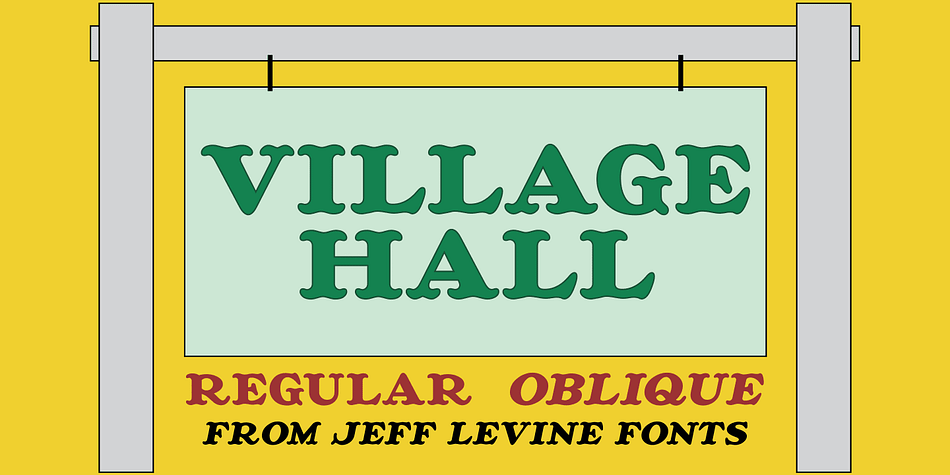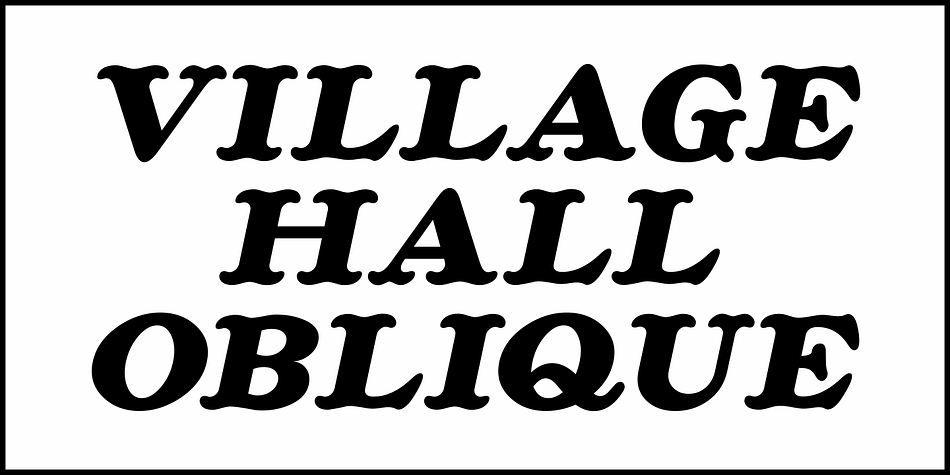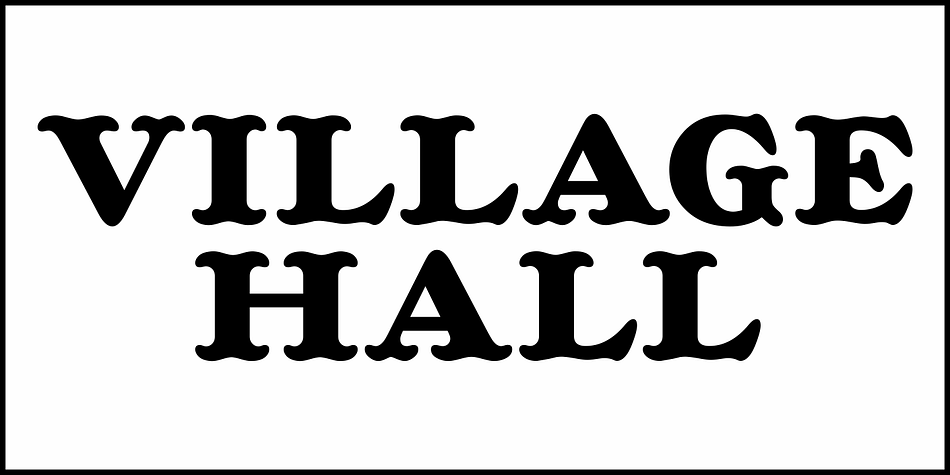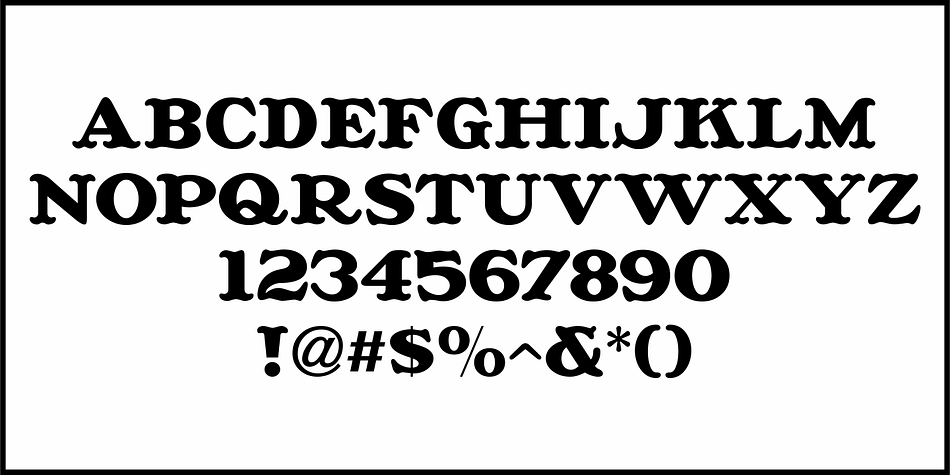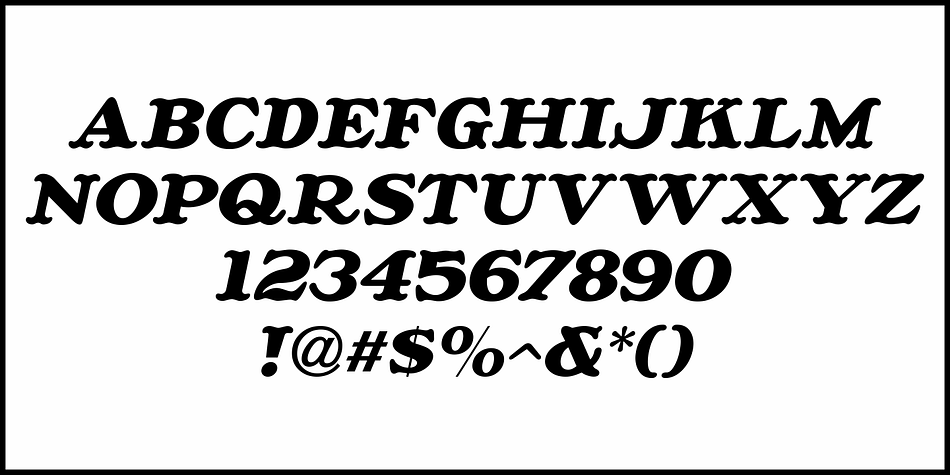
VILLAGE HALL JNL
Designed by Jeff Levine, Village Hall JNL is a retro and western font family. This typeface has two styles and was published by Jeff Levine Fonts.
A 1918 poster issued during World War I from the YWCA encouraged women to pitch in to the war effort by joining the “United War Work Campaign”.
The Art Nouveau hand lettering of that poster was a slight throwback to the “Western” or “Victorian” style of typography because of the characters having split serifs.
This is now available as Village Hall JNL, in both regular and oblique versions.